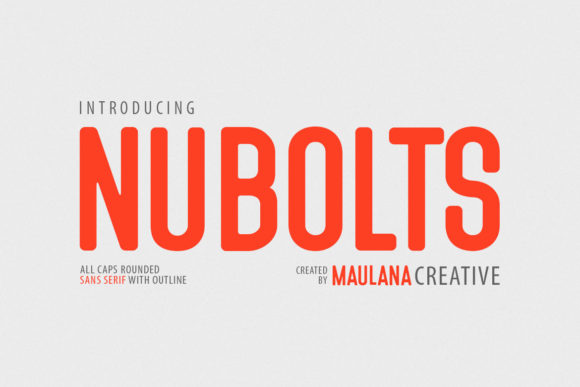
Step into the realm of typography with Nubolts Rounded Sans, a bold sans serif font family that transcends boundaries. Crafted by the skilled hands of Maulana Creative, Nubolts is an artistic masterpiece designed to make your creations shine.
Discover the Outline style, where letters dance with delicate contours, exuding an aura of creativity and playfulness. Experience the Outline Bold style, where confidence and strength take center stage, leaving an unforgettable impact. And when you need a touch of solid elegance, the Solid style delivers with its crisp, clean lines, ensuring your message is seen and heard.
With Nubolts Rounded Sans, the possibilities are limitless. Embark on a visual odyssey, where branding and logos come alive with a distinctive character. Create magazine layouts that captivate readers, and films that leave a lasting impression. Design websites that engage and inspire, with headlines and titles that demand attention. Captions, games, and apps take on a new vibrancy, while posters and t-shirts become wearable works of art.
Nubolts Rounded Sans is more than just a font; it's an invitation to express yourself with a unique voice. Whether you're a creative professional, a budding entrepreneur, or simply someone who appreciates the beauty of typography, Nubolts is the perfect companion for your creative journey.
Dare to be different, dare to stand out, and let Nubolts Rounded Sans ignite your imagination.